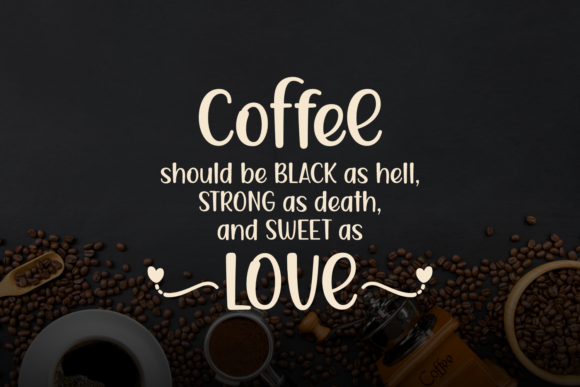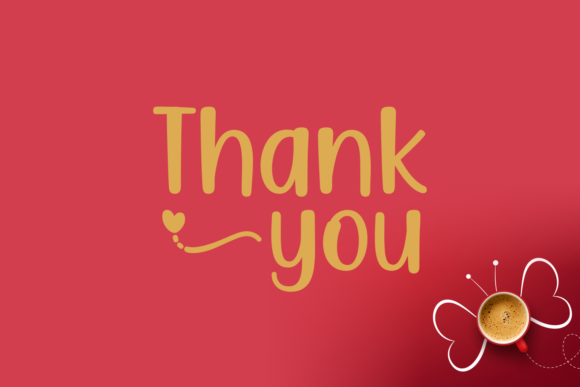
Introduction to Orie Font
Have you ever stared at a blank page, searching for the perfect font to bring your creative project to life? The frustration of endless scrolling through design resources can be overwhelming, but what if I told you that the perfect font is just a click away? For designers looking to add a touch of uniqueness to their work, Orie Font is here to revolutionize the way you think about typography.
With its natural and friendly style, Orie Font is the ultimate design companion for any creative endeavor. Whether you’re working on a project that requires a transparent background or a high-quality display, this font is the perfect choice. And the best part? It’s available for free download, making it an accessible resource for designers of all levels.
Orie Font
- Includes a wide range of characters and glyphs for versatility
- Perfect for logos, branding, and other visual identity elements
Honest Review: Orie Font
As a designer, I’m always on the lookout for high-quality design resources to elevate my creative projects. Recently, I came across the Orie Font, and I’m excited to share my honest review with you.
- ✨ High-quality typography: The Orie Font boasts a sleek and modern design, making it perfect for a wide range of creative projects.
- ⚠️ Limited language support: Unfortunately, the Orie Font only supports a limited number of languages, which might be a concern for designers working on global projects.
- ⚠️ Not ideal for small text: While the font looks great at larger sizes, it may not be the best choice for small text, as it can become difficult to read.
Overall, I’m impressed with the Orie Font’s high-quality design and free download option. While it may have some limitations, I believe it’s a valuable resource for designers working on creative projects that require a modern and sleek typography.
Orie Font
For the most out of Orie Font, use it in combination with other design resources to create a cohesive and visually appealing design. Some common use cases include creating social media graphics, designing business cards, and crafting presentations. Orie Font is a versatile font that can be used in a variety of creative projects.